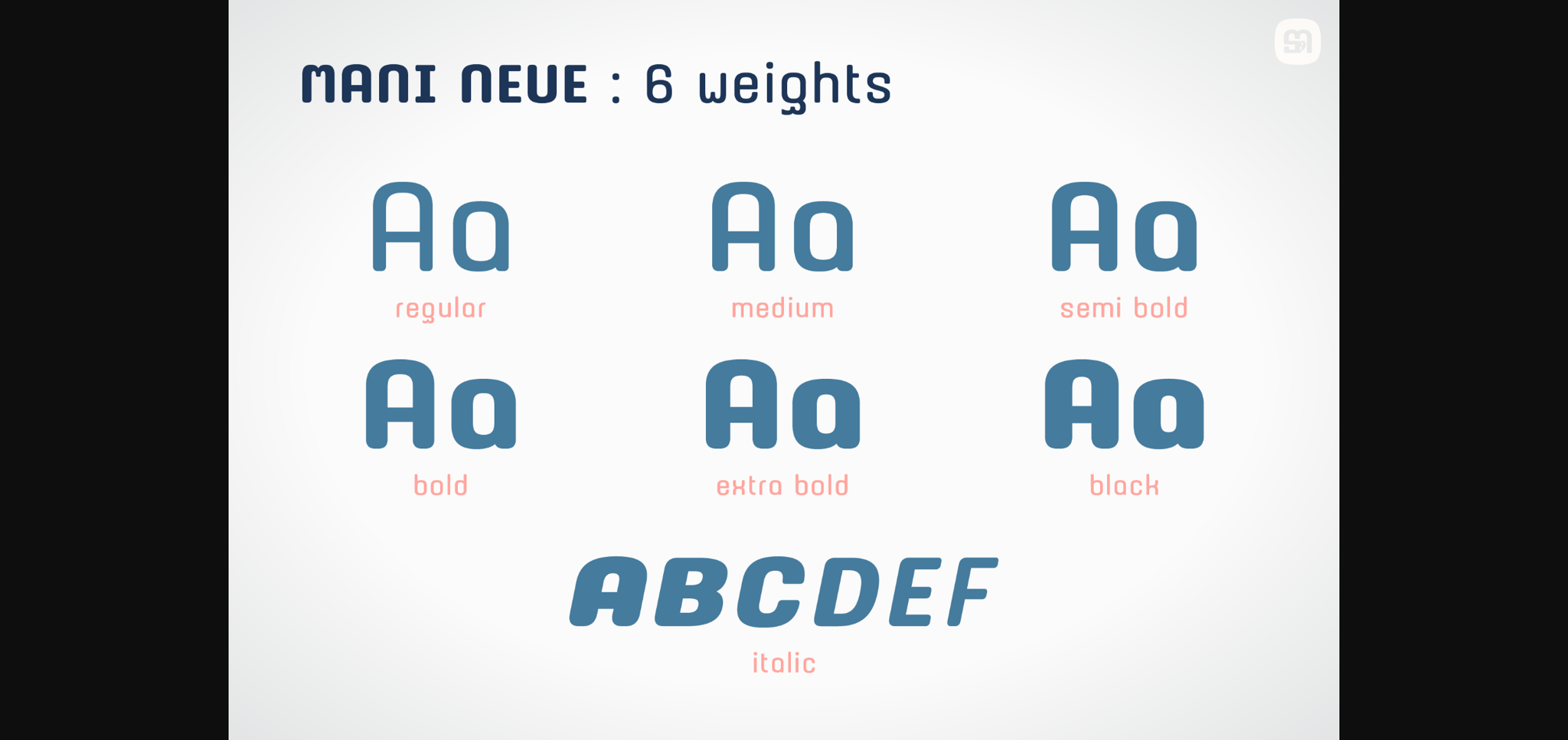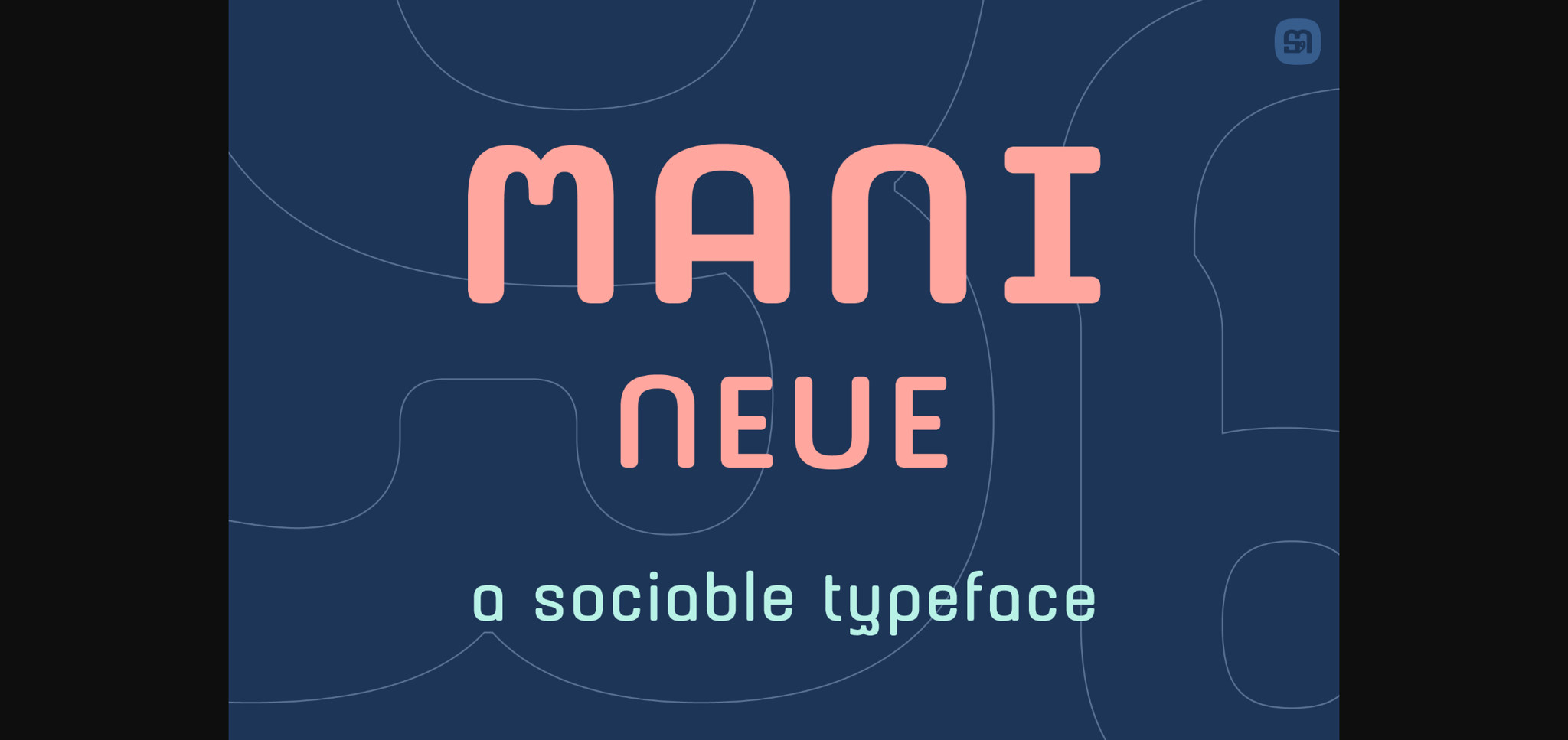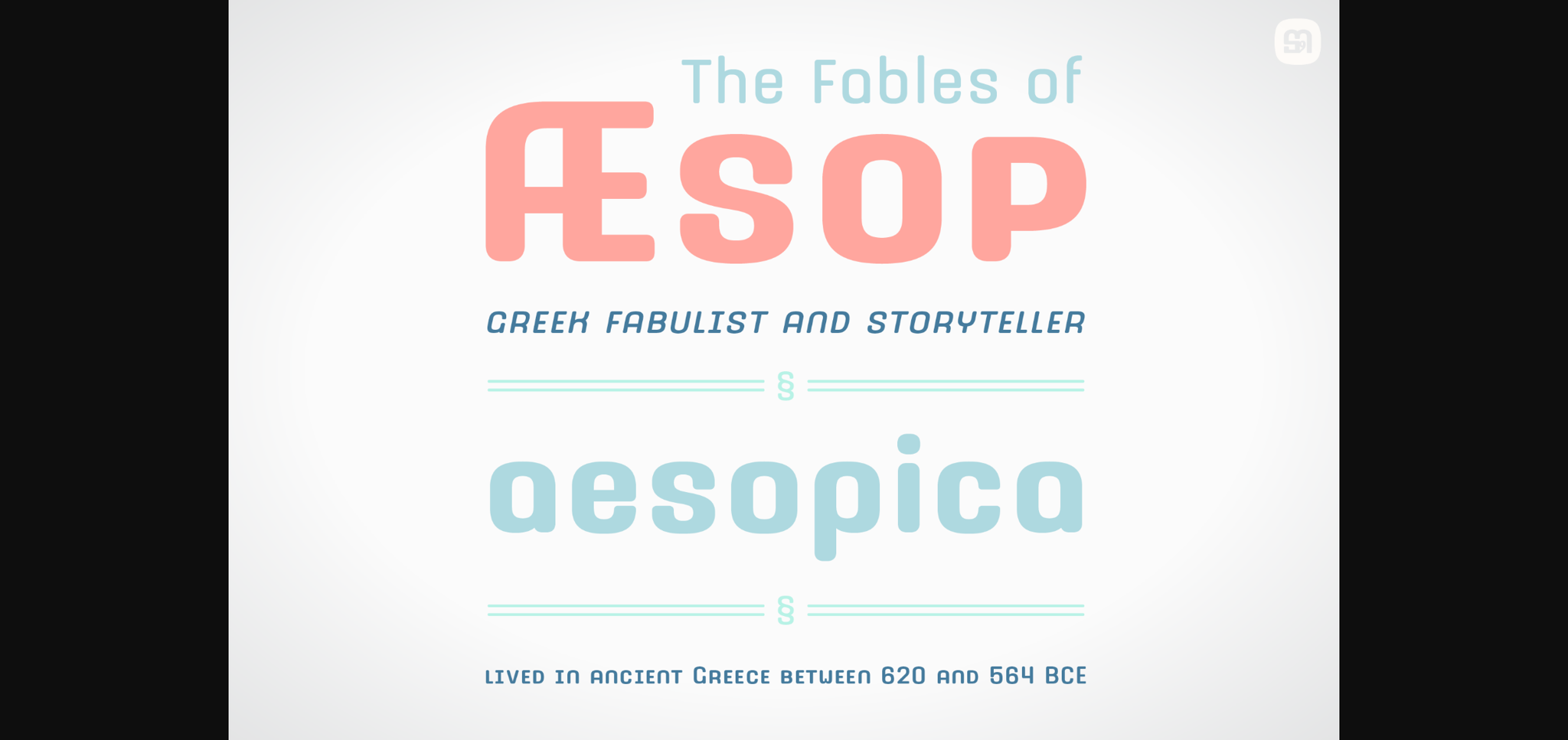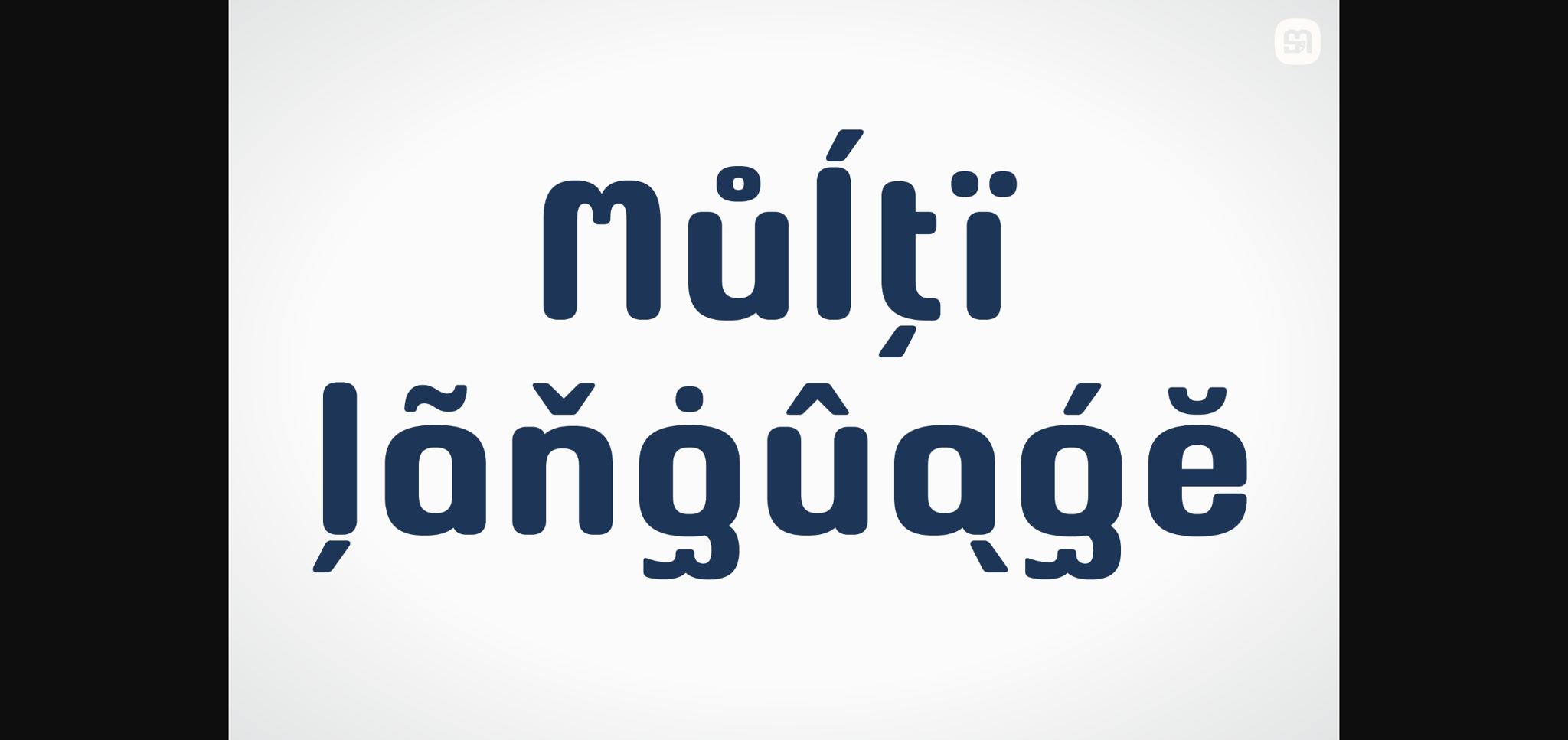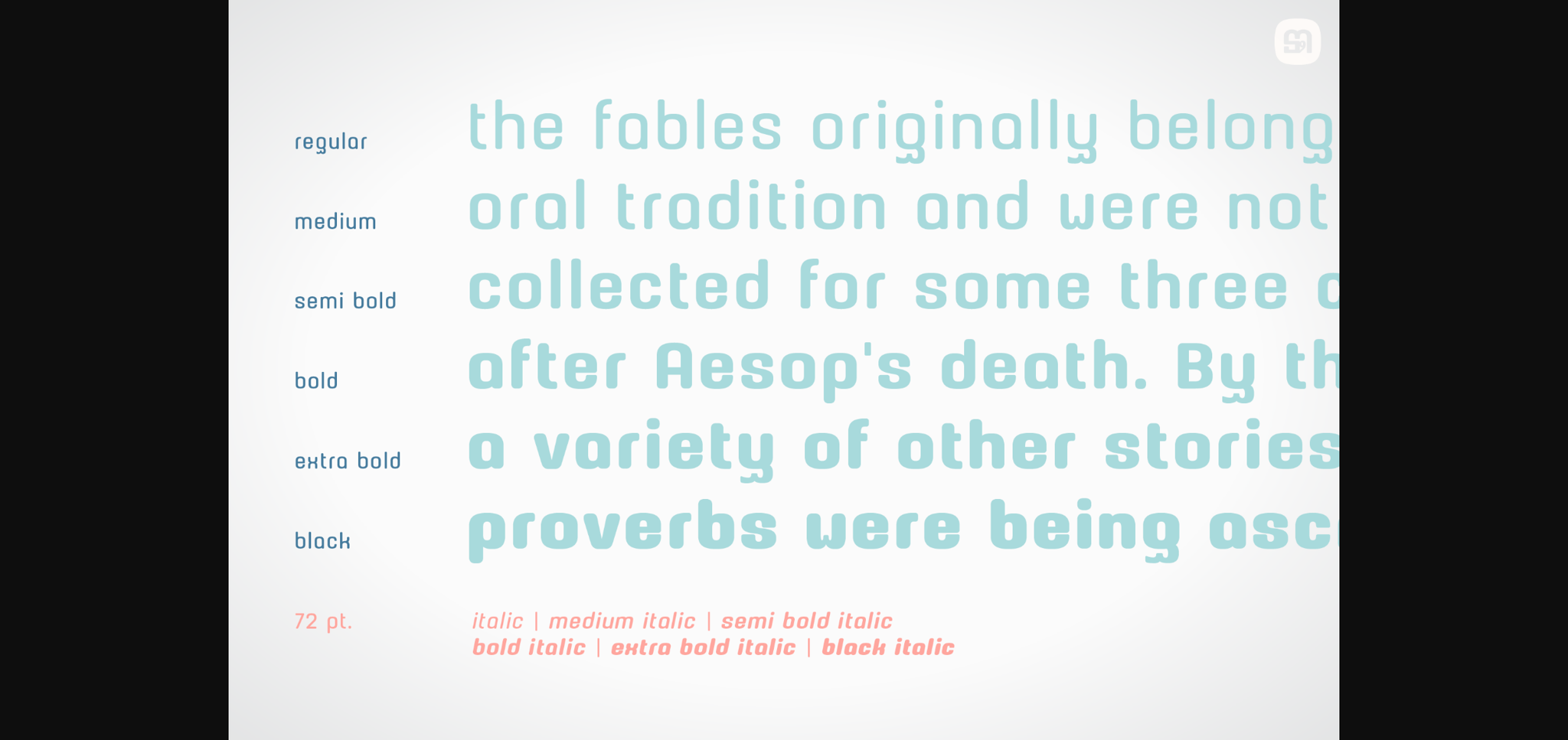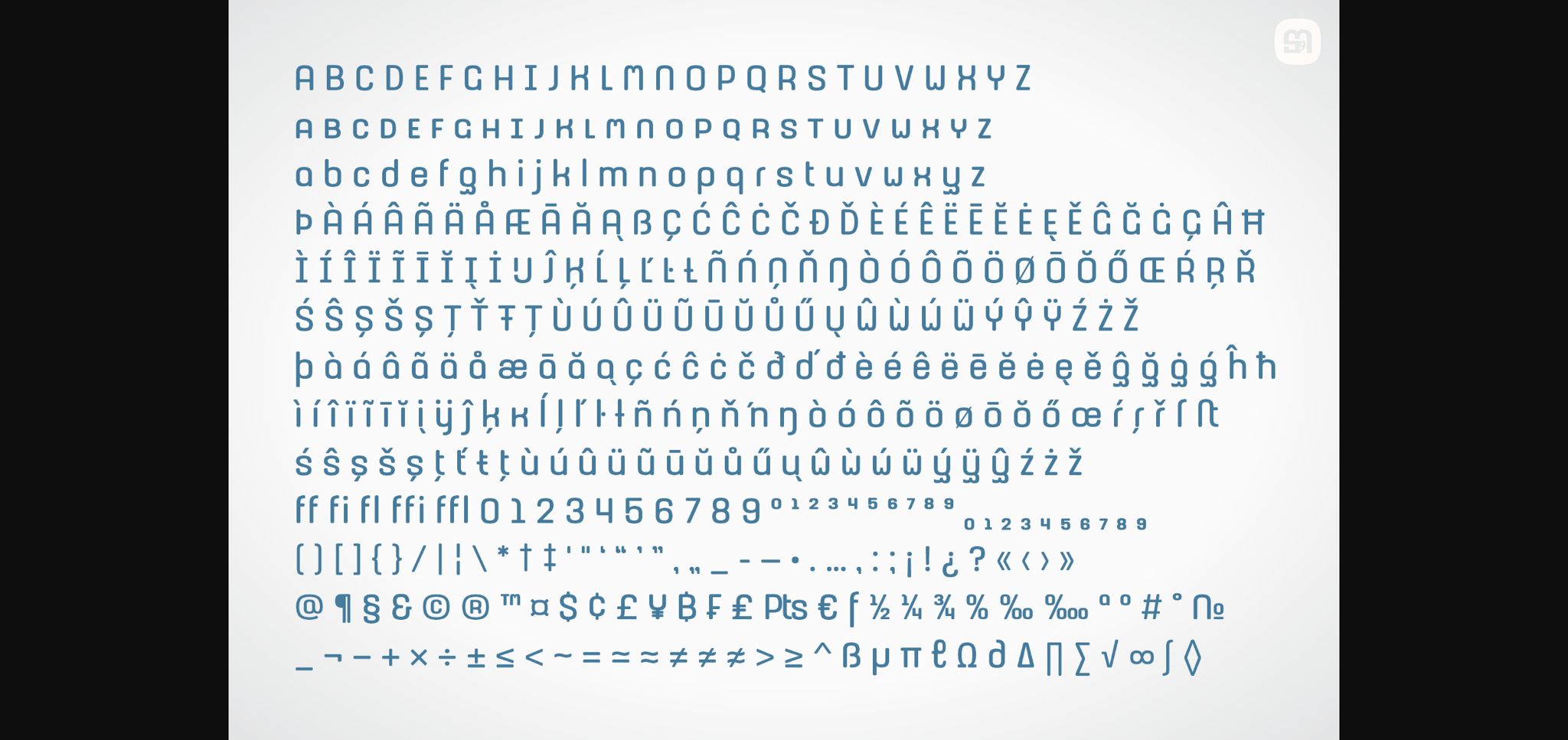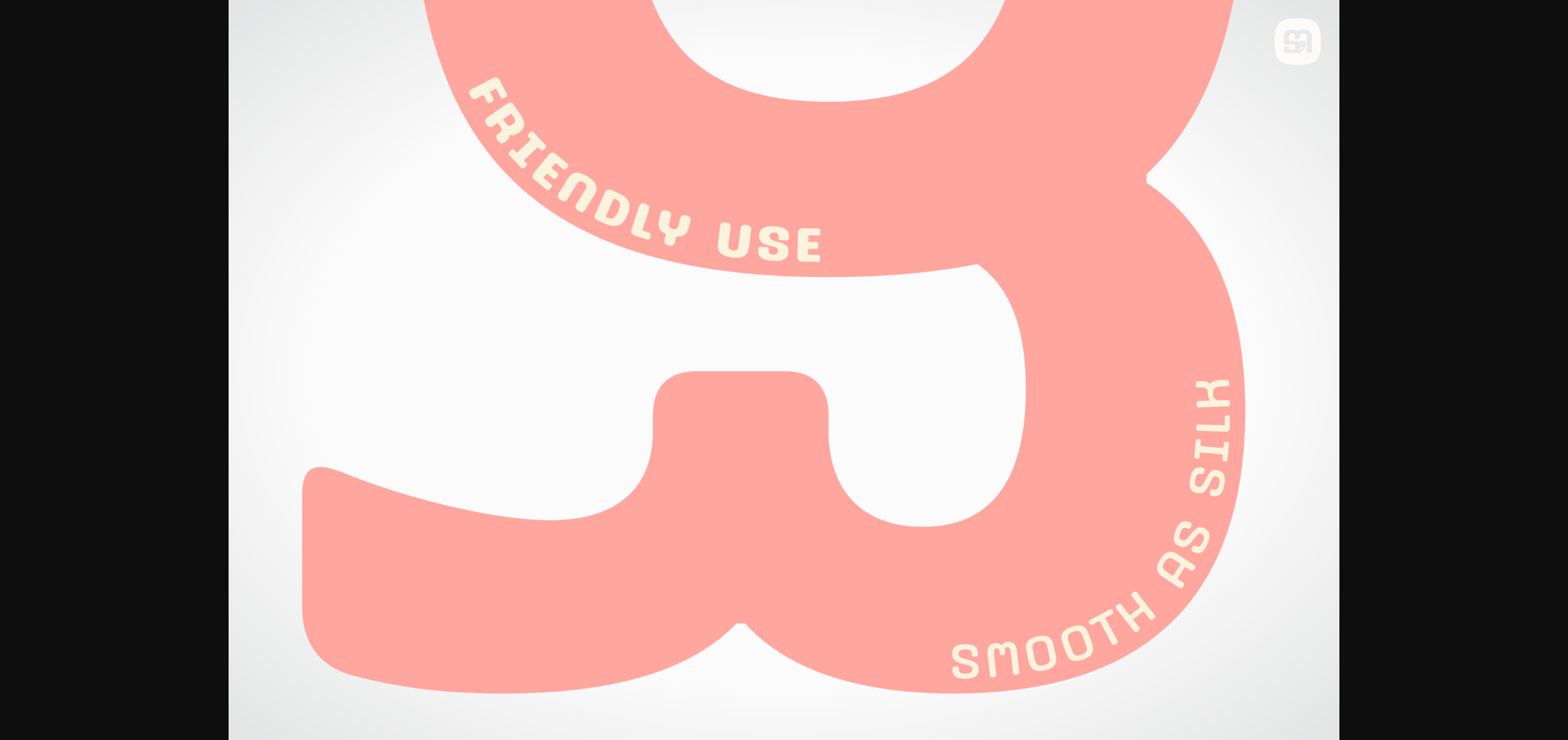
Mani Neue Font
About Mani Neue Font
Mani Neue is a lovely and friendly sans serif font. Whether you’re using it for kid posters, decorations, menus, presentations, or making greeting cards, this font has the potential to become your favorite go-to font, no matter the occasion!